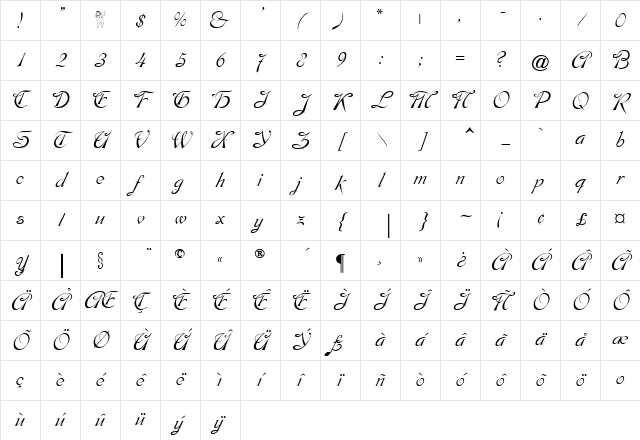
Dobkin Script Regular Free Font
Dobkin Script Regular
Dobkin Script Family
Complete Dobkin Script Regular glyph index. Displaying only characters natively supported by Dobkin Script Regular font.
Design Context for Dobkin Script
Dobkin Script flows with the natural rhythm of handwritten lettering, making it ideal for designs that call for warmth and personal expression.
Font Pairing: Combine Dobkin Script with a simple geometric sans for maximum contrast - the tension between flowing curves and clean structure is a classic typographic pairing.
Pro Tip: Use Dobkin Script for short runs of text - names, titles, or taglines. Extended body copy in script faces tires the eye quickly.